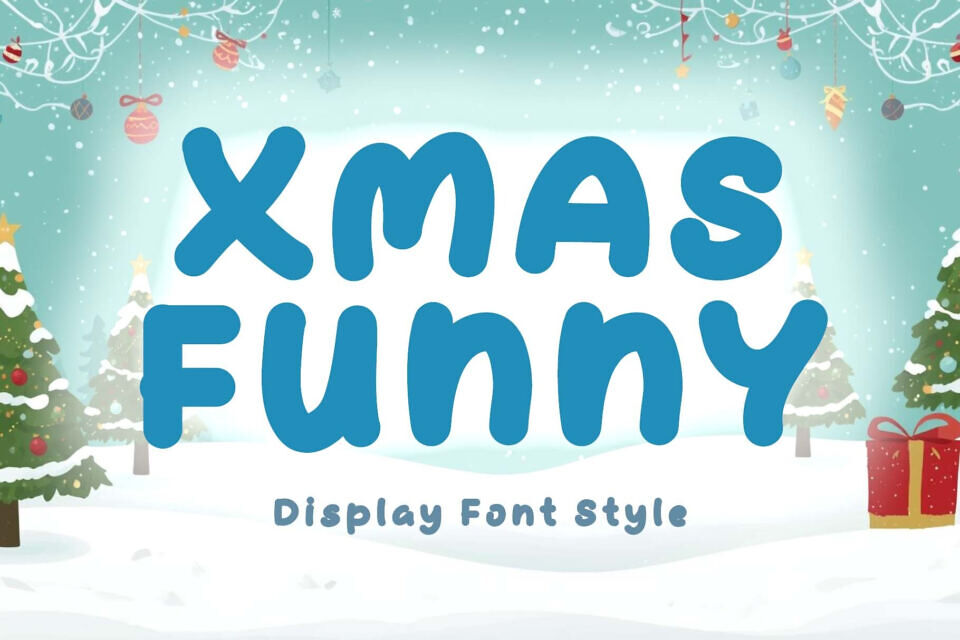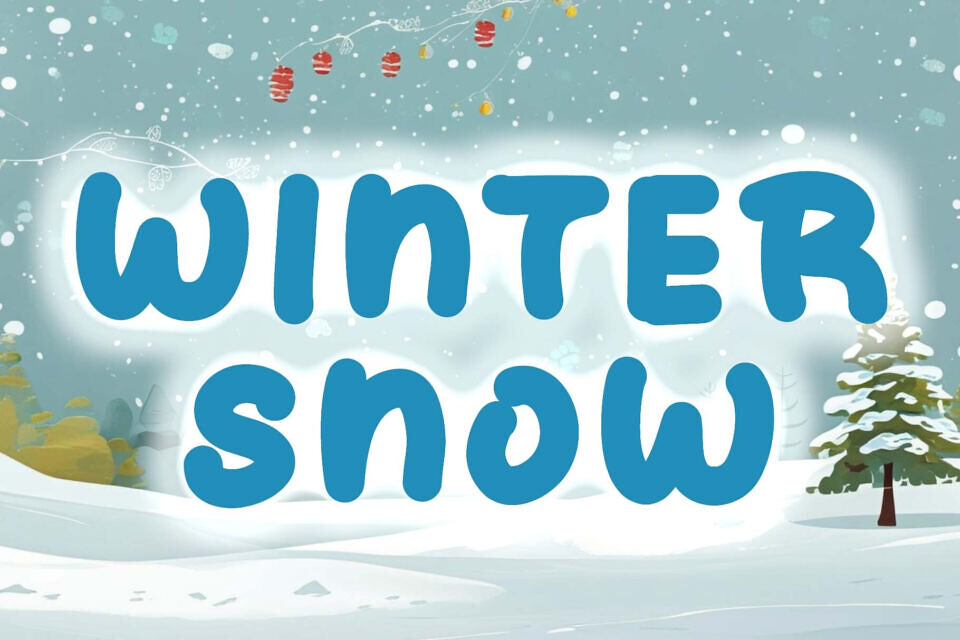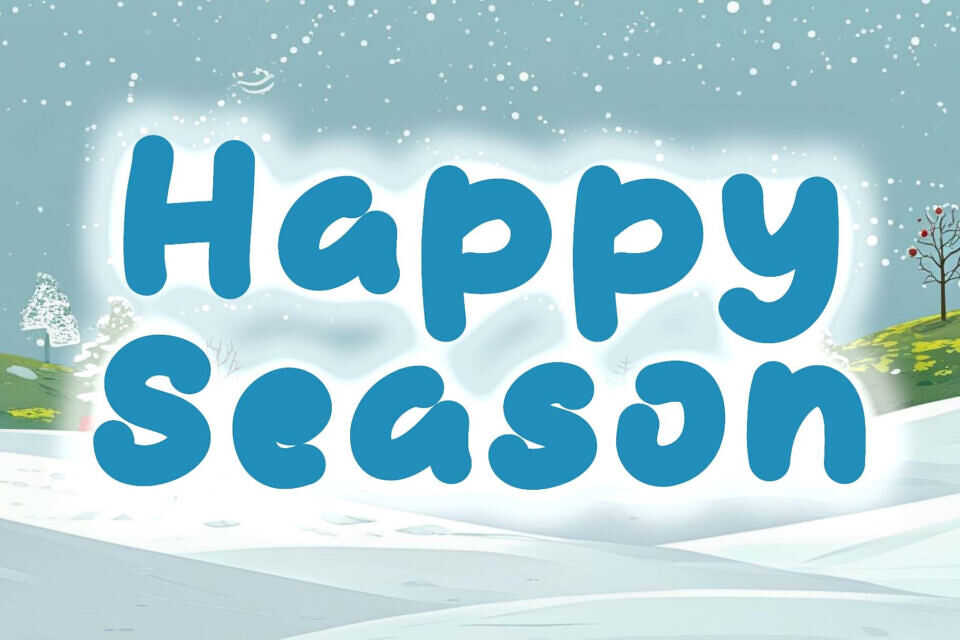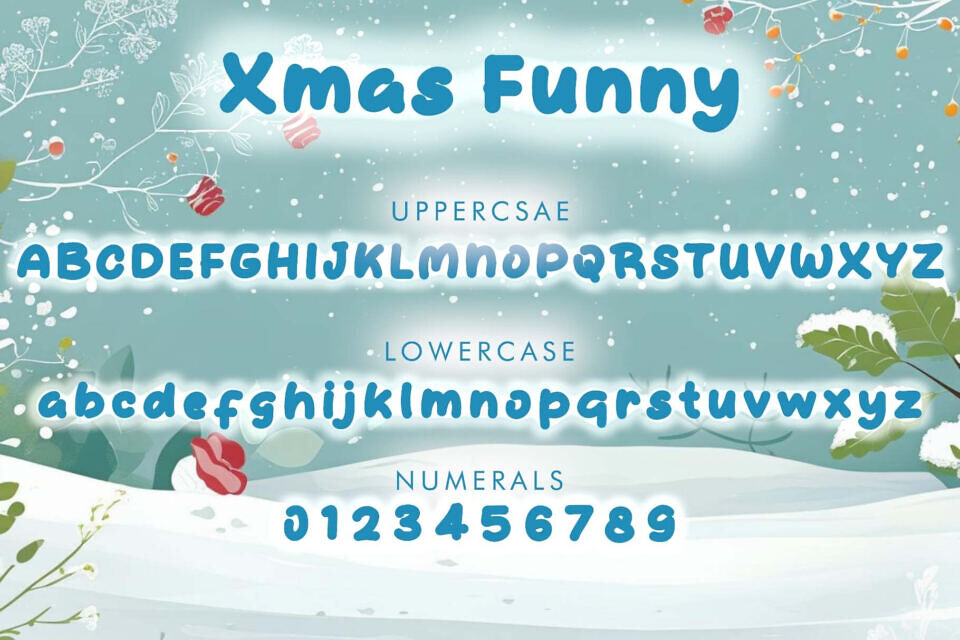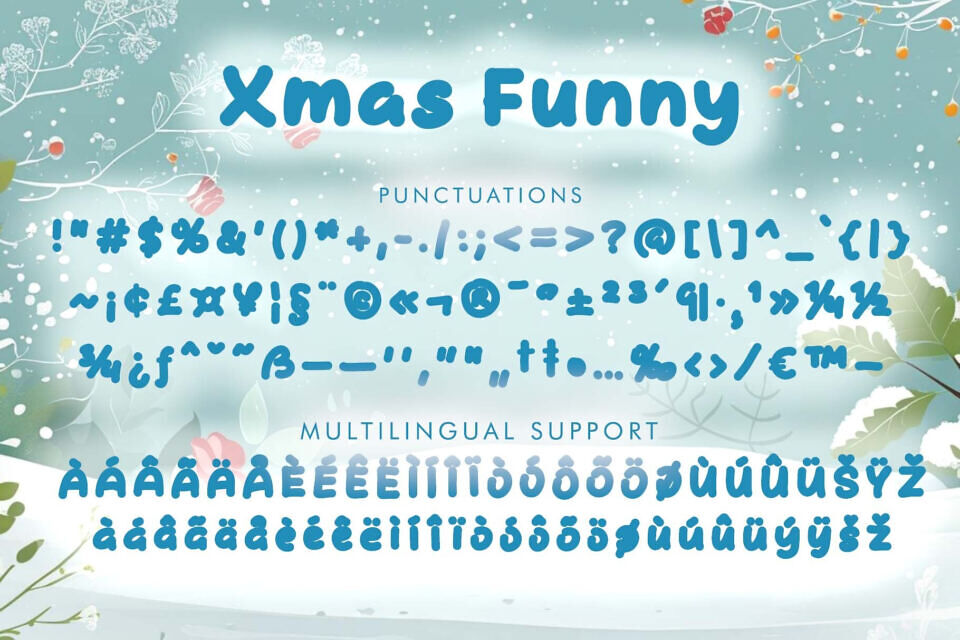
Xmas Funny is a unique and fun display font. It features uppercase and lowercase letters, numerals, punctuations, and multilingual support. It’s perfect for banners, posters, prints, branding, Christmas, Halloween, fall, autumn, comics, magazines, book titles, Valentine’s Day, cartoons, logos, stickers, Valentine’s Day, spring, summer, mugs, t-shirts, and more.